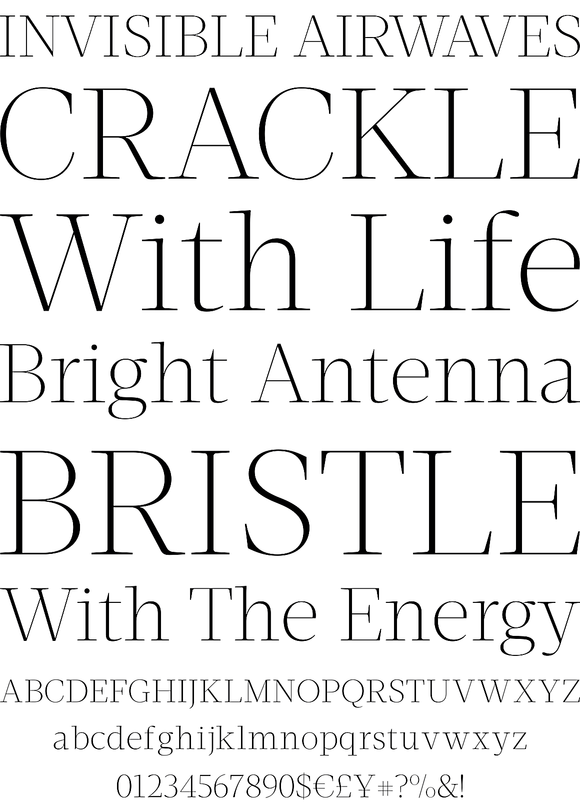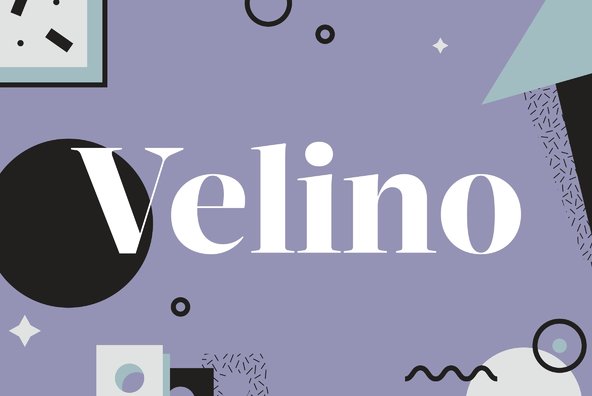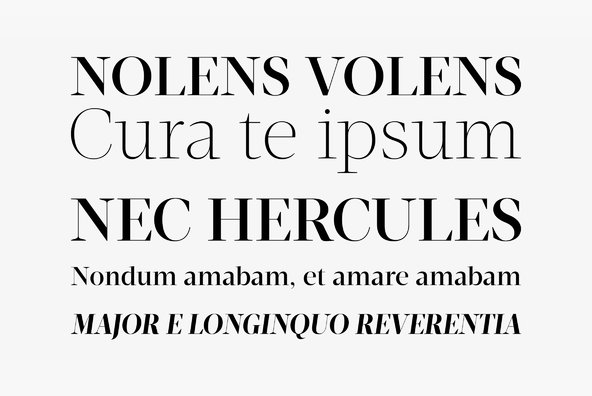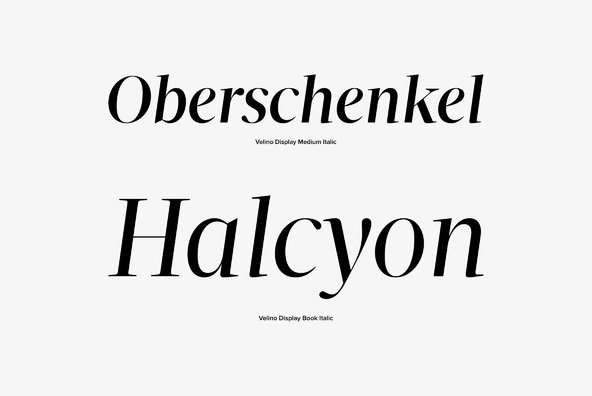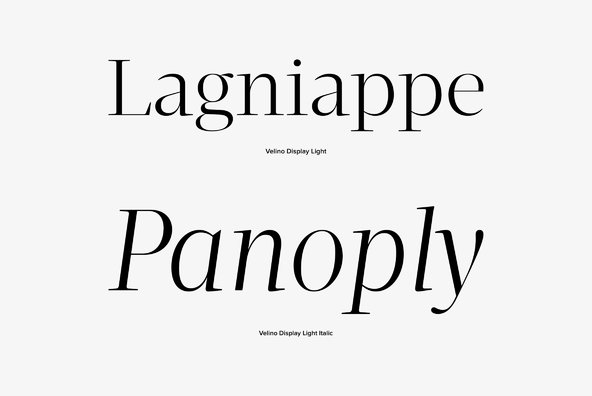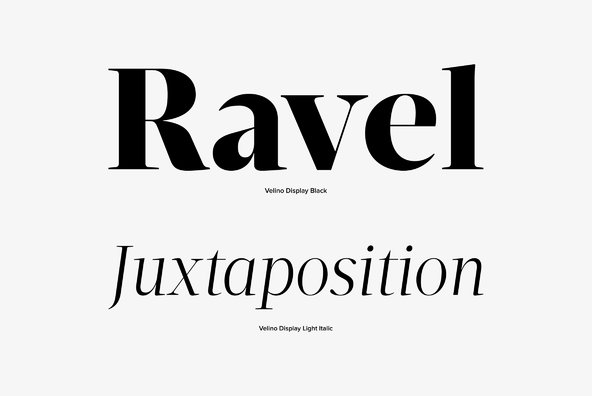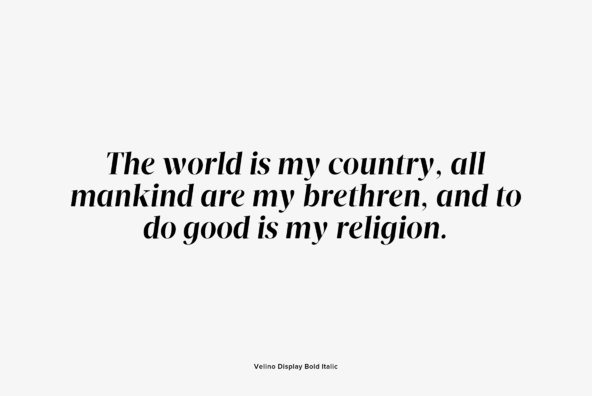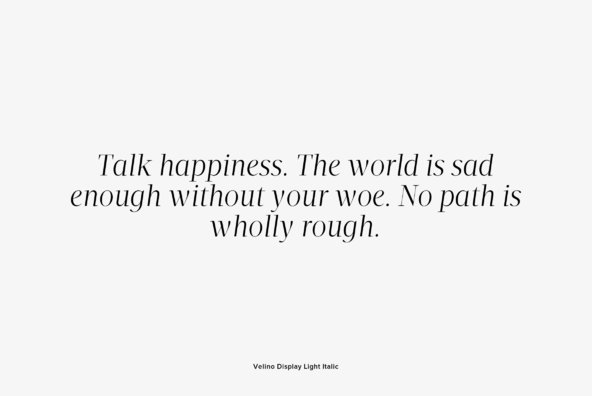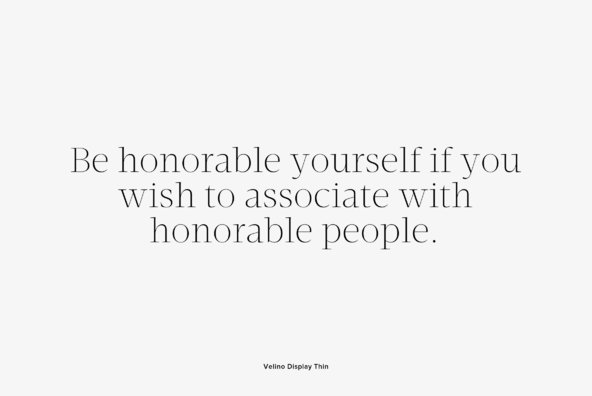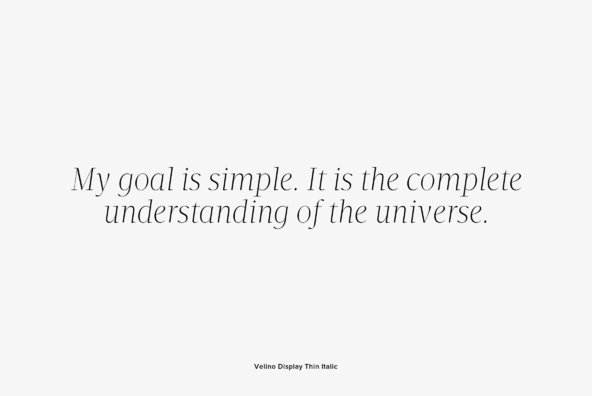
Velino Display
Velino is the most recent of our Premium Typefaces.The serif version comes in two packages with three widths: Velino, Velino Condensed and Velino Compressed. The Display package contains high contrast typefaces, with a modern flair, very feminine but with plenty of character, specially designed for fine print in big text sizes.The Text package was designed for any running text. It’s proportions and colors make it the ideal for text, even in very difficult conditions such as newspaper printing. We also designed the perfect companion to this enormous type system: Velino Poster, a Slab Serif typeface with only one weight and it’s respective italic, but with plenty of muscle, for every time some extra strength is needed, like setting very big text, magazine covers or newspaper’s special sections. Finally we designed Velino Sans and Velino Sans Condensed to perfectly match the weight and proportions of Velino, all with matching italics.